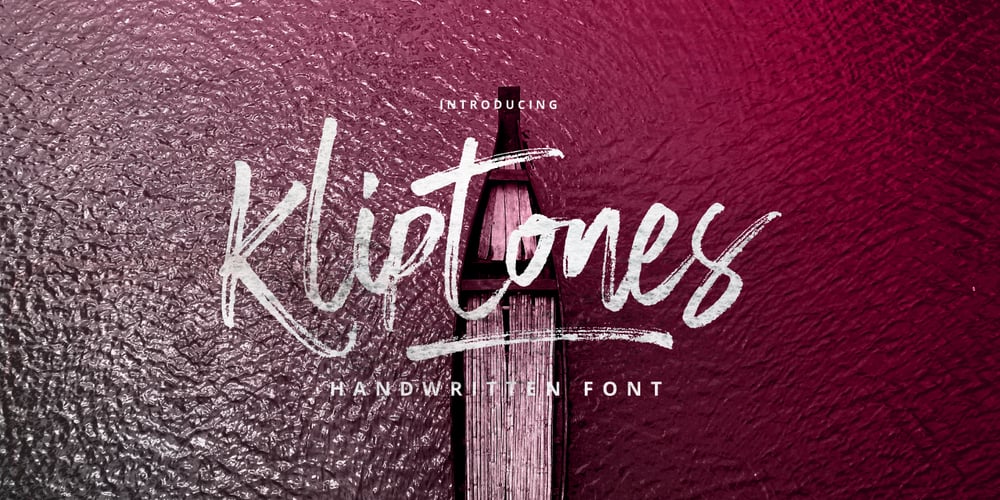
Kliptones Brush Font Family was designed by Ferdiansyah and published by ijemrockart. Kliptones Brush contains 1 styles and family package options. Kliptones Brush Typeface , with authentic dry brush imperfections, and a very bouncy baseline It has a perfectly paired complimentary marker font , and a super handy set of bonus Swash. Ideal for logos, handwritten quotes, product packaging, header, poster, merchandise, social media & greeting cards.Features : Basic Latin A-Z and a-z Numbers Symbols PUA Encode Multi language Support To enable the OpenType Stylistic alternates, you need a program that supports OpenType features such as Adobe Illustrator CS, Adobe Indesign & CorelDraw X6-X7.There are additional ways to access alternates, using Character Map (Windows), Nexus Font (Windows), Font Book (Mac) or a software program such as PopChar (for Windows and Mac).